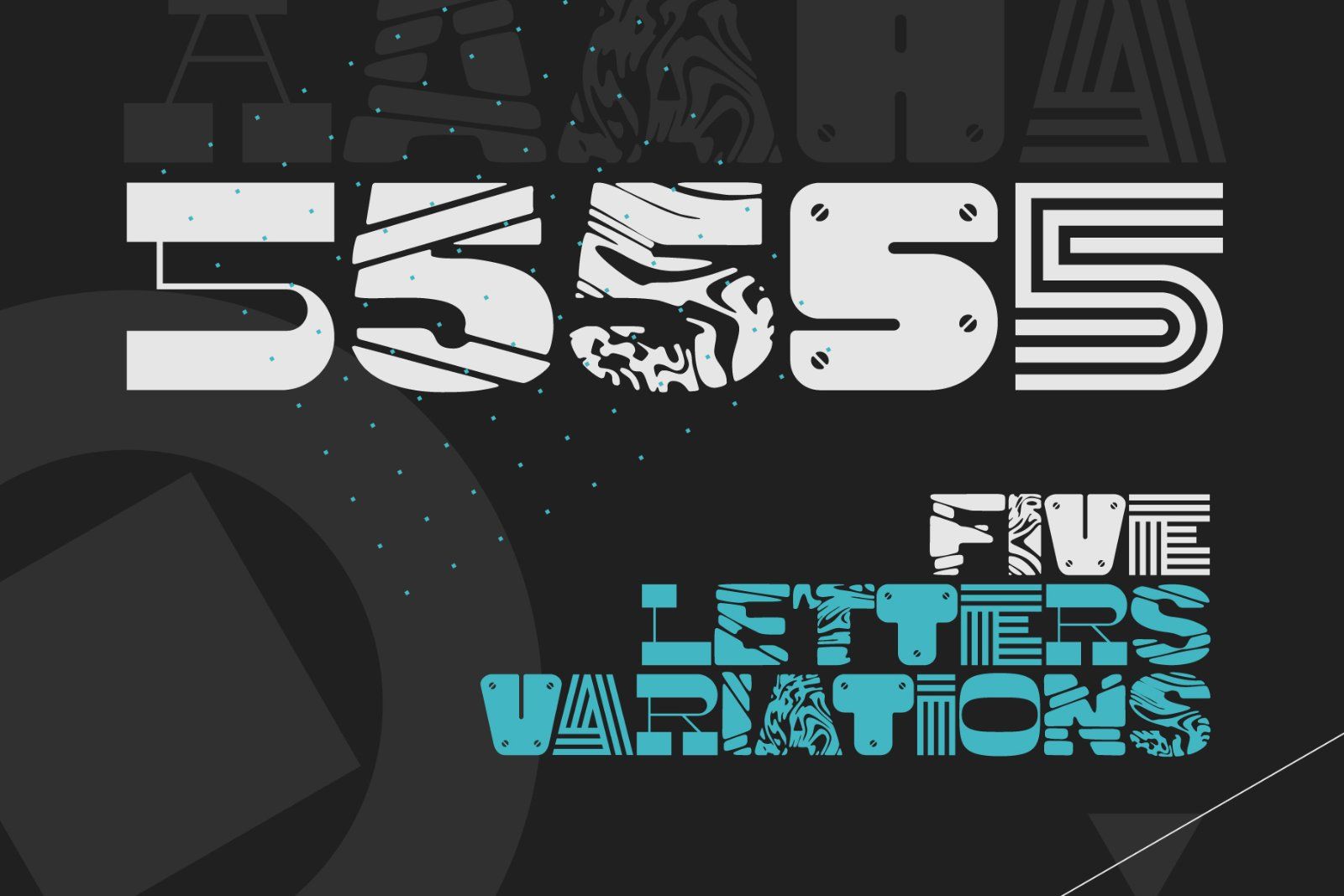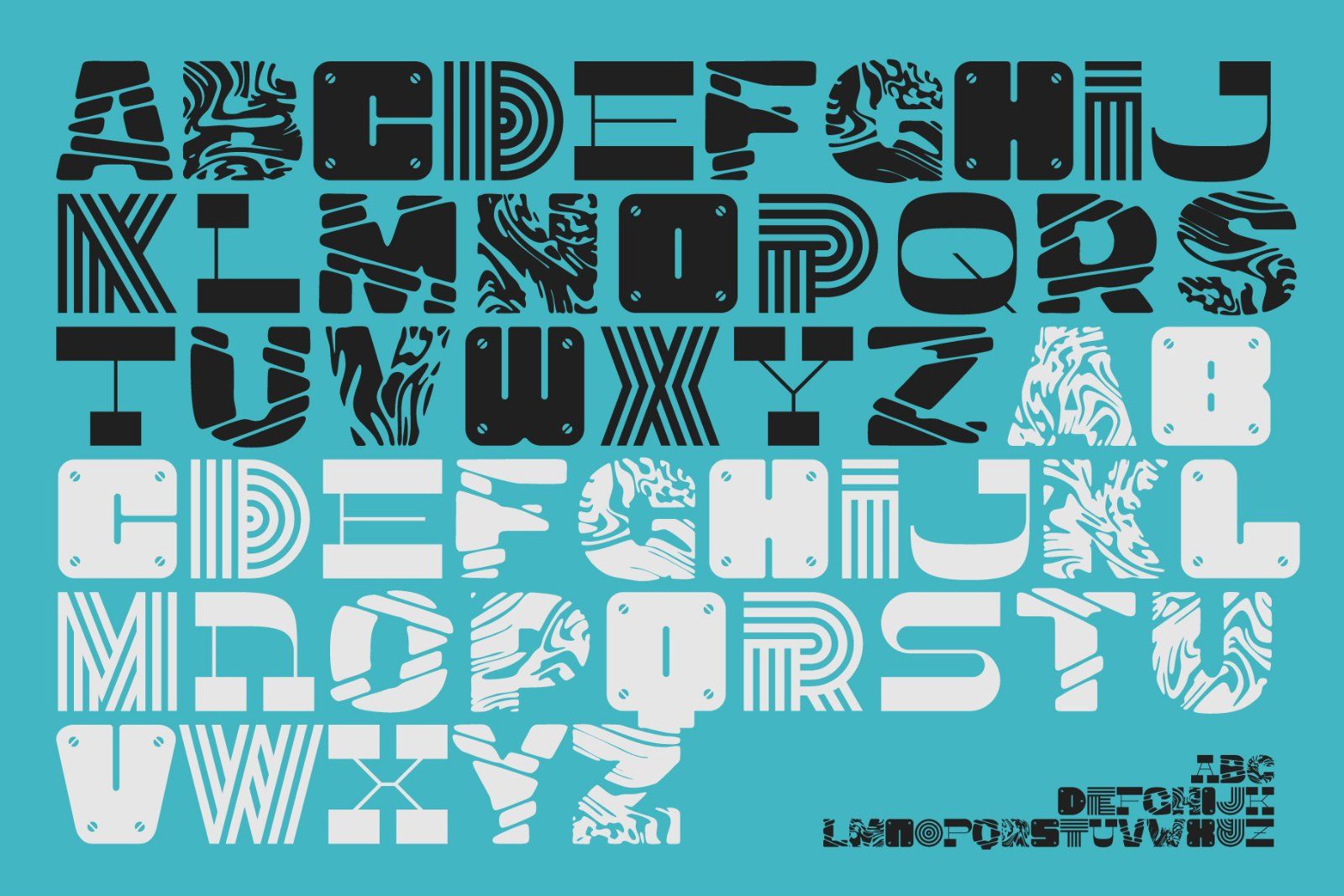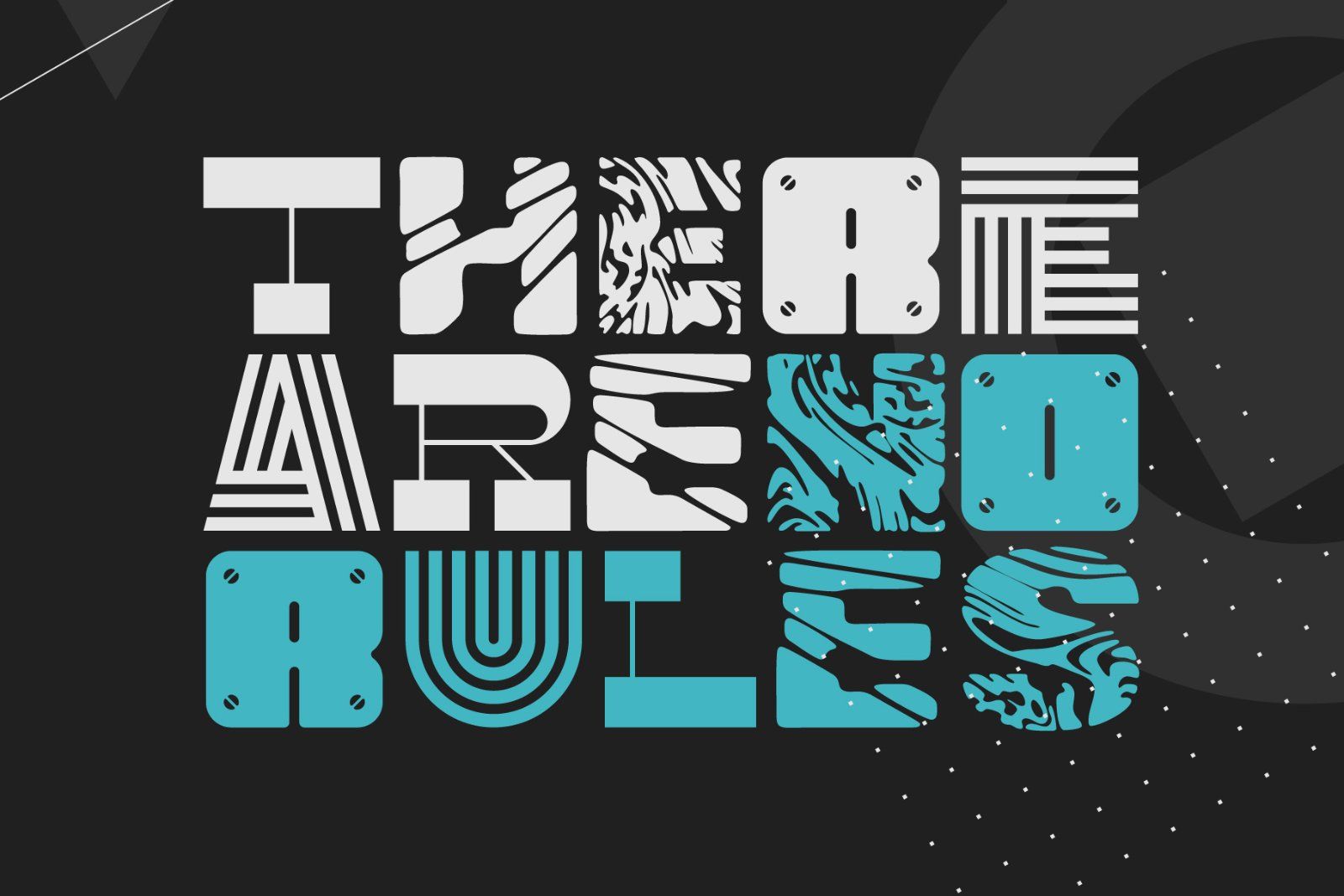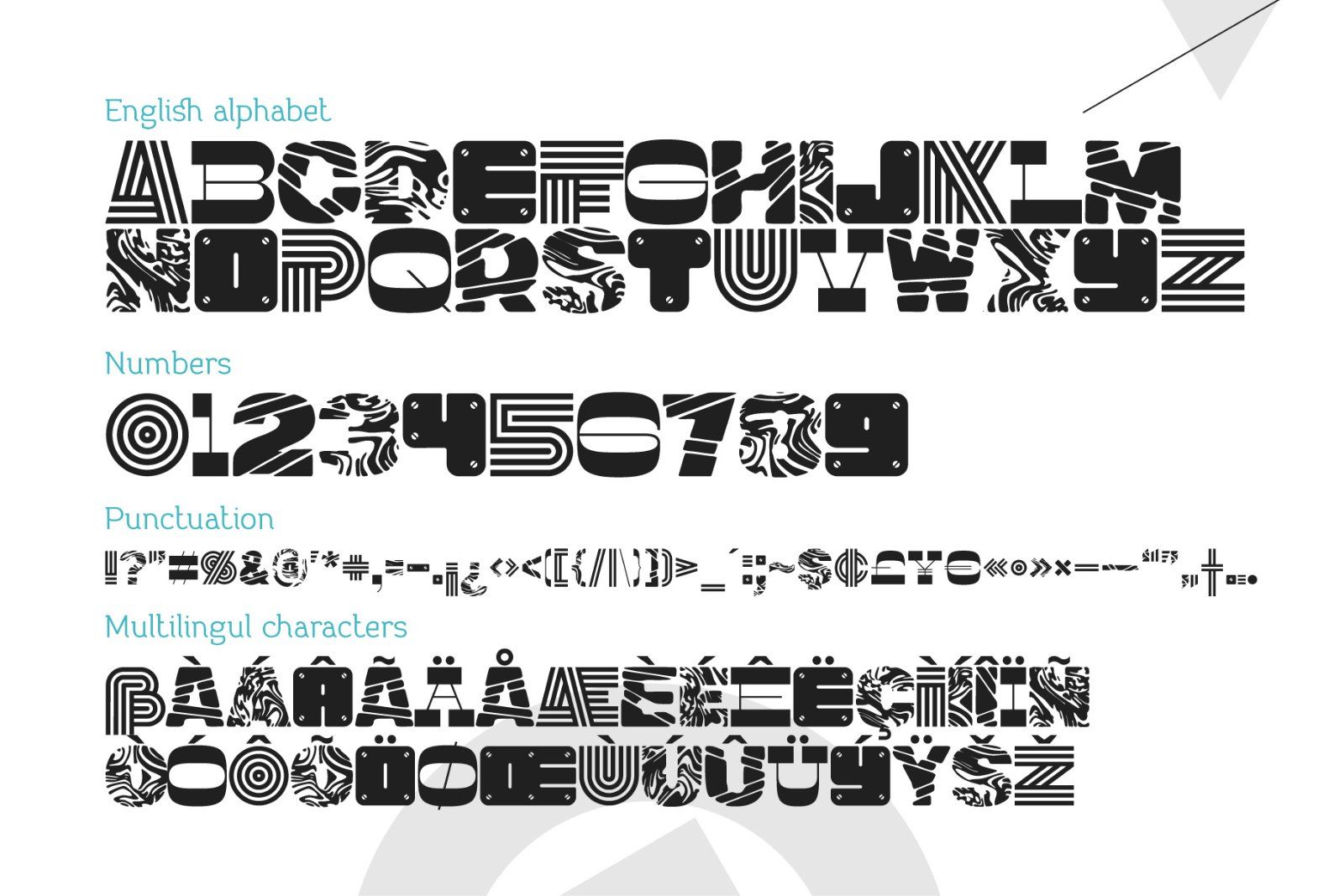
Hi, introducing a creative font named "No rules". It's a very unique typeface with modern experimental shapes. It includes five different styles for letters and numbers. "No rules" font can help you to create an unexpected texture and graphical rhythm.
Each next letter will be automatically switched to another variation using OpenType contextual alternates feature. Using capital or lower first letters will make a different looking words. Also letters set can be changed using stylistic alternates feature.
Note: Only English alphabet and numbers has five glyphs variations. Multilingual characters has only two of them, for capital and lower case letters.